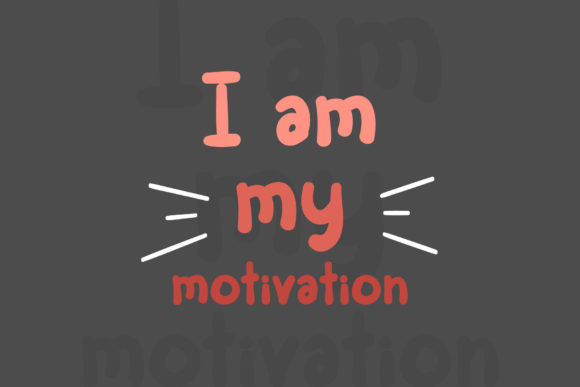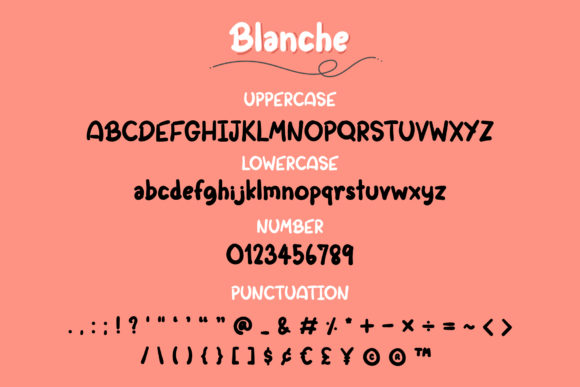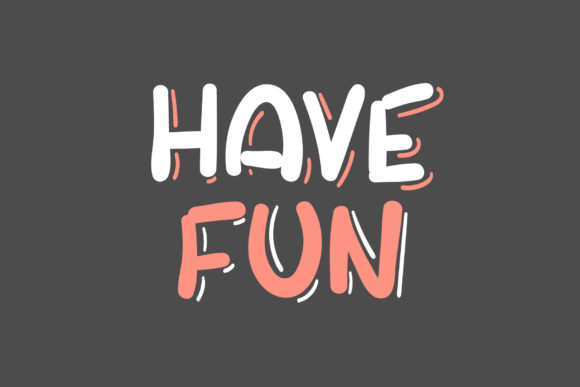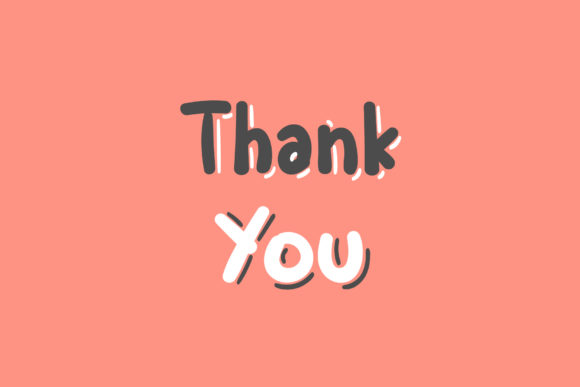
The Quest for the Perfect Handwritten Font: Discovering Blanche
I’ll never forget the time I was working on a DIY project for a client’s wedding invitation. I had the design concept nailed, but I was struggling to find the perfect font to bring it all together. The client wanted something cute, casual, and handwritten, but not too fancy. I scoured the internet, tried out dozens of fonts, and still, nothing seemed quite right. That was until I stumbled upon Blanche, a beautiful handwritten font created with the help of an outstanding brush pen.
First Impressions: A Review of Blanche
Blanche is a true standout in the world of handwritten fonts. Here’s what I love about it:
- ✨ Unique, casual feel that’s perfect for creative projects
- ✅ Easy to read, even in smaller sizes
- 💫 Beautifully crafted with a brush pen, giving it a personal touch
- 🎨 Highly versatile, suitable for a wide range of design projects
Of course, no font is perfect, and Blanche does have a few small quirks:
- 🤔 Some letters may appear a bit inconsistent in size or spacing, which can be noticeable in certain contexts
- ⚠️ Limited language support, so it’s best suited for English or similar languages
The Story Behind Blanche
Blanche was created by a talented font designer who’s passionate about crafting unique, handwritten fonts. Inspired by the beauty of brush pen calligraphy, Blanche is a reflection of the designer’s love for creative expression and attention to detail. The result is a font that’s both personal and versatile, perfect for a wide range of design projects.
| Font Name | Blanche Font |
| Author | Wanida Toffy |
| Q: What type of projects is Blanche best suited for? | Blanche is perfect for creative projects, such as DIY crafts, social media graphics, and branding designs. |
| Q: Is Blanche available in different languages? | Blanche has limited language support, so it’s best suited for English or similar languages. |